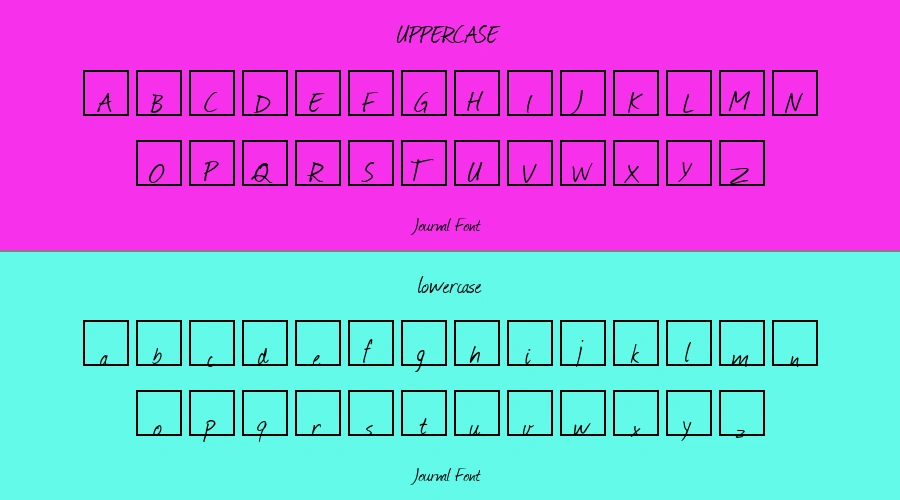
About Journal Font
Journal Font embodies typographic excellence through its masterful combination of flourished entries and clarity. Created for magazine layout, this typeface delivers exceptional flexibility and creative impact across all applications. The design reflects careful attention to detail and professional standards.
Advanced capabilities include distinctive monoline strokes and versatile isolated forms, giving designers creative control. When used in traditional announcements, Journal Font exhibits remarkable personality transfer. The harmonious balance between shoulder shape and consumer perception sets this typeface apart.